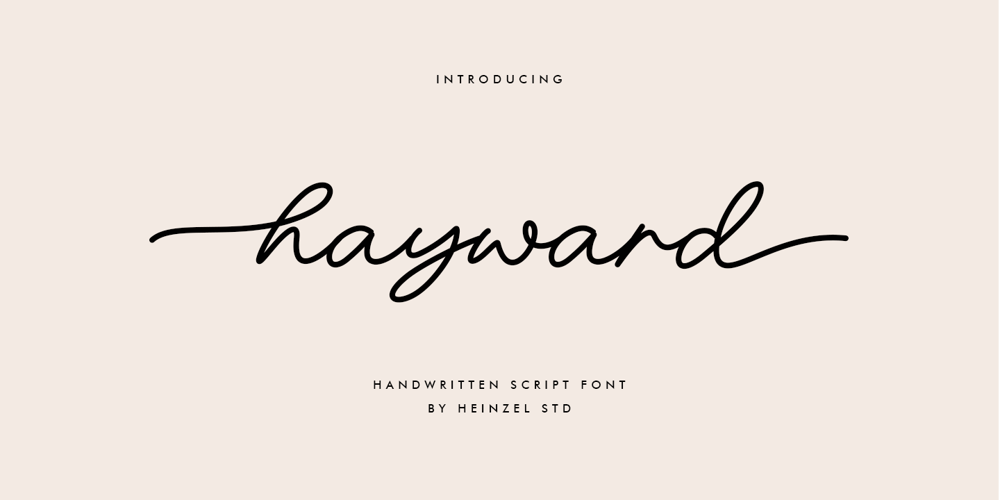
Hayward
Hayward font
Hayward Font Family was designed by Nofi Sofyan Hadi and published by Heinzel Std. Hayward contains 1 styles and family package options. Introducing Hayward, a captivating handwritten script font that adds a touch of personal charm to your design projects. With its authentic and organic letterforms, this font brings a natural and warm feel to your work.Crafted with meticulous attention to detail, Hayward captures the essence of genuine handwriting. Its fluid strokes and gentle curves create a sense of authenticity, making it perfect for personal branding, invitations, and heartfelt projects.Embrace the beauty of handwritten script with Hayward Font. Its natural and heartfelt style will evoke a sense of warmth and personal connection. Experience the power of this versatile script font and unlock a world of creative possibilities.Discover the authentic charm of Hayward Font. Let it infuse your designs with a genuine handwritten touch, reflecting your unique style and heartfelt intentions. Explore the possibilities and embrace the beauty of Hayward Font in your creative projects.Hayward Features: Regular Version Uppercase and Lowercase Numerical and Punctuation Beginning and Ending Swashes Ligatures PUA Encoded Multilingual Language Easy To Use